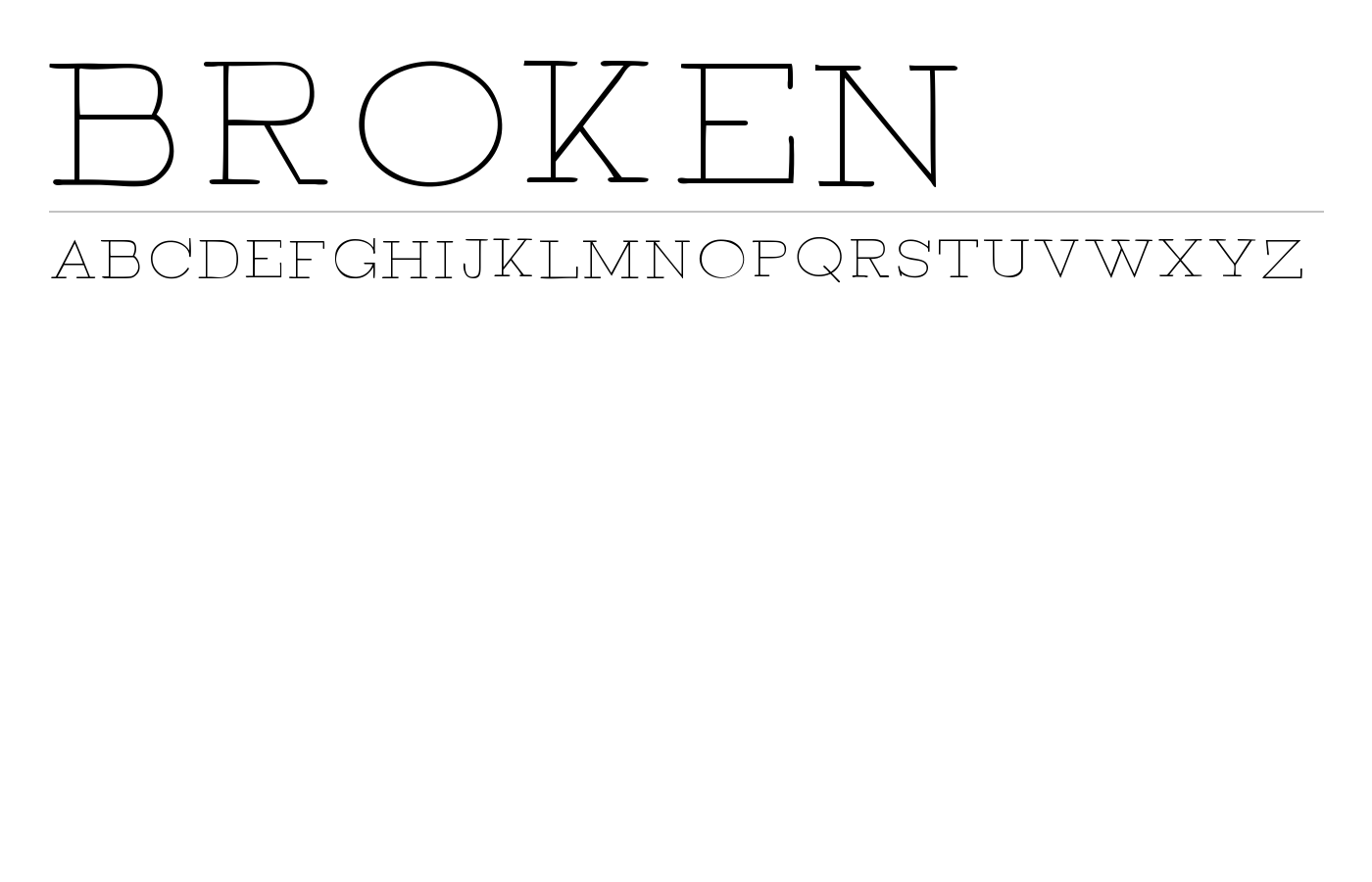
BROKEN Thin Demo is a delicate slab serif font with a minimalist yet striking design. Its thin weight, high contrast, and clean, precise lines give it an elegant and modern feel, while the slab serifs add a subtle touch of classic structure. Ideal for upscale branding, editorial headlines, and stylish logos, this font communicates sophistication with a contemporary edge.
BROKEN thin demo Font
About BROKEN thin demo Font